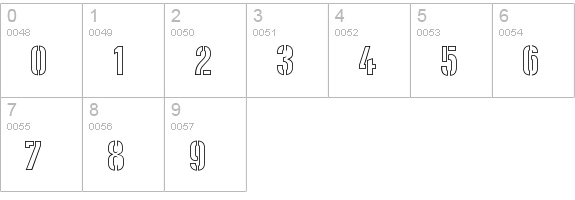
DieselStencil Outline Font Details
DieselStencil Outline font is a modern and versatile typeface that exudes a powerful and edgy vibe. With its bold and distinct stencil design, this font is perfect for making a statement in various design projects including logos, posters, headlines, and more. The clean lines and sharp edges of DieselStencil Outline give a contemporary and industrial feel to any text. Best of all, DieselStencil Outline font is available for free download at FontsMarket.com. This means you can easily access this unique and eye-catching font to enhance your creative projects without any cost. Don't miss out on the opportunity to add a touch of boldness and sophistication to your designs with DieselStencil Outline font!